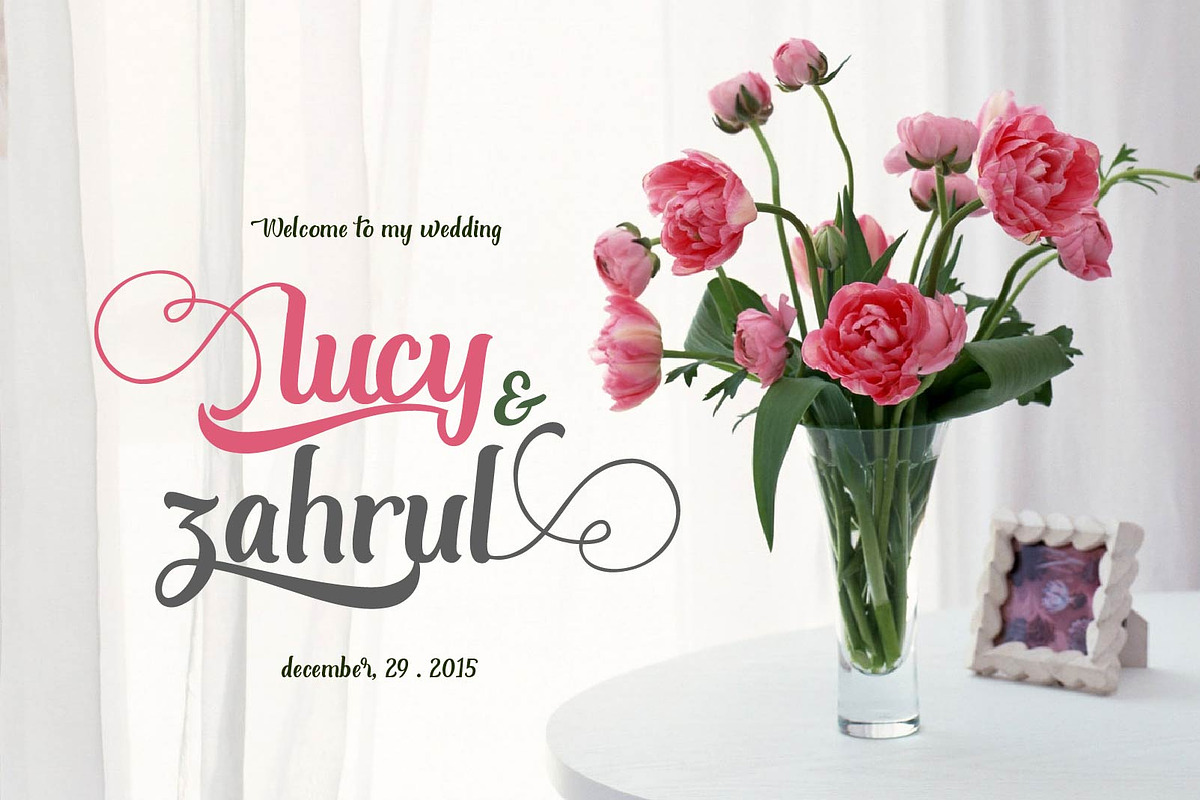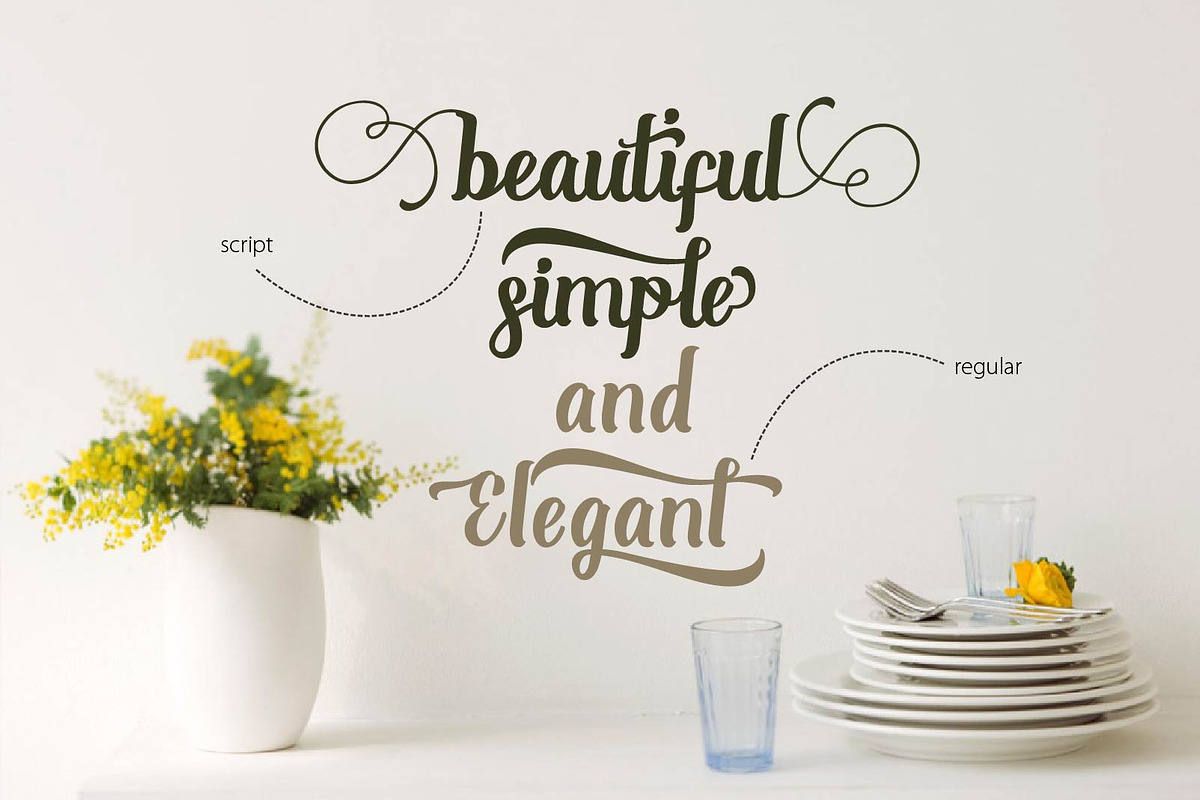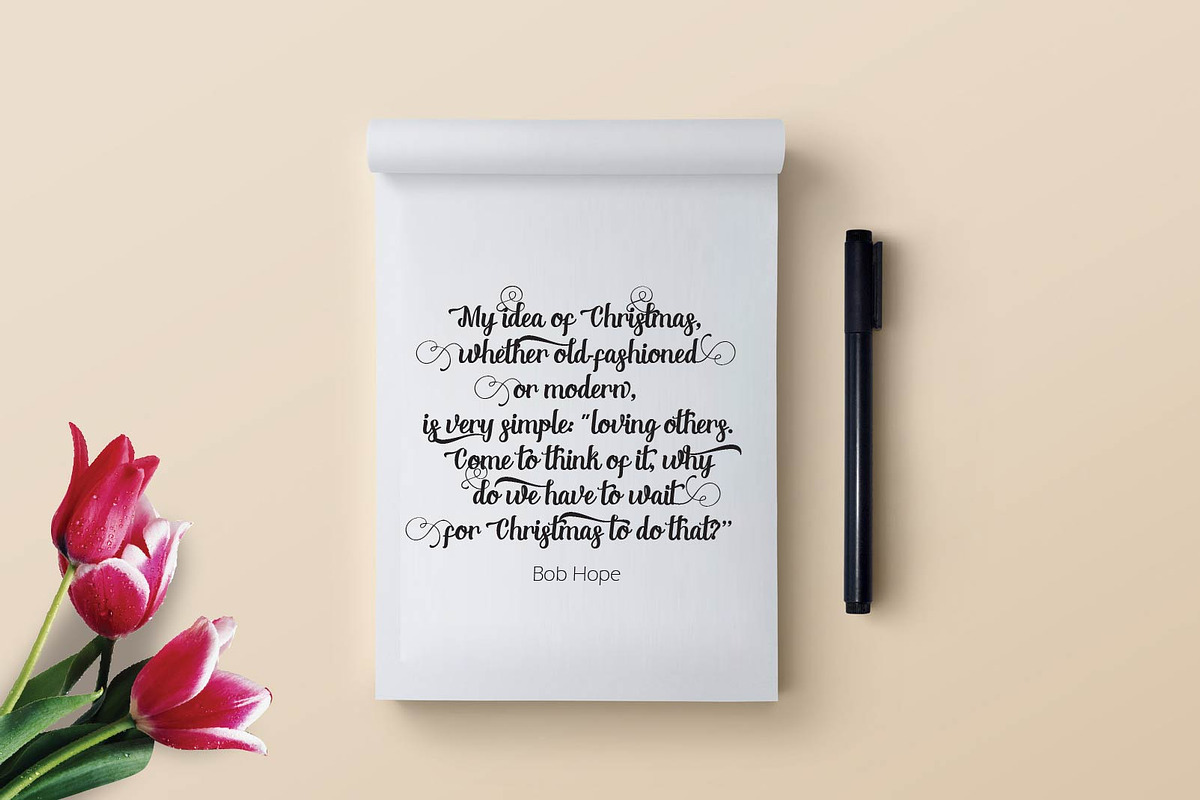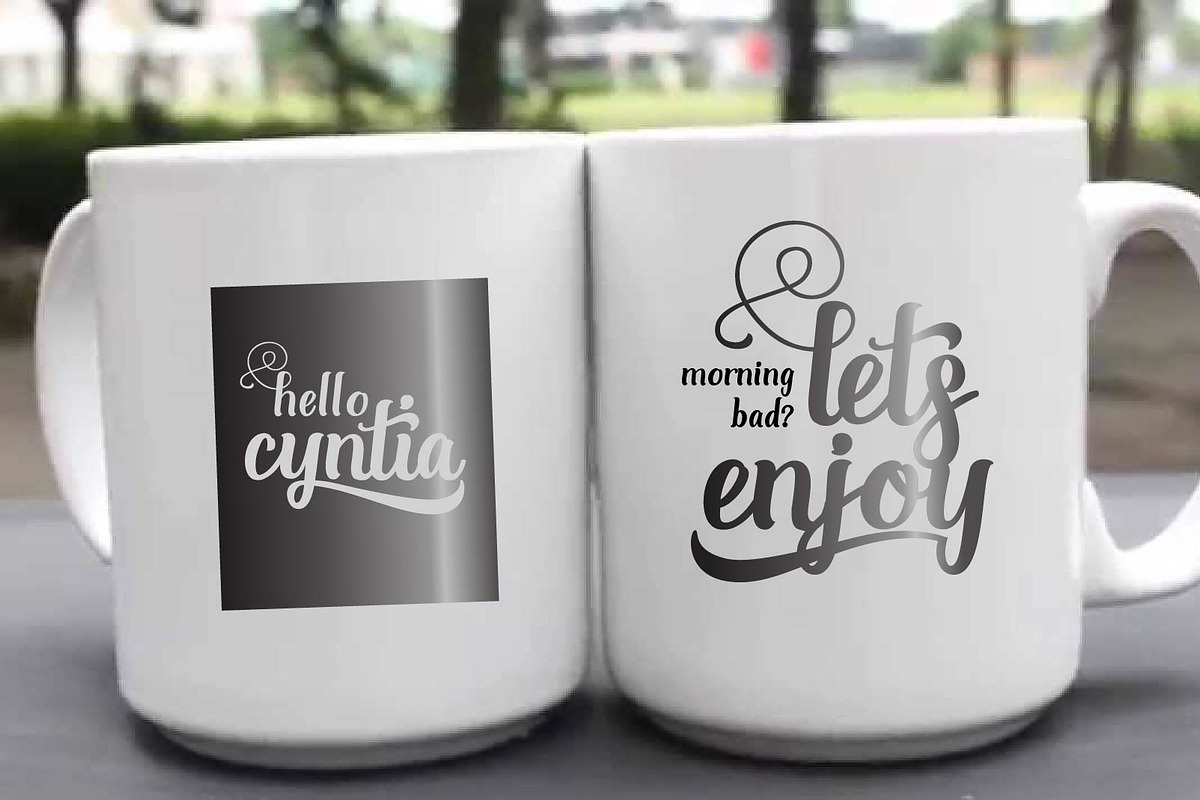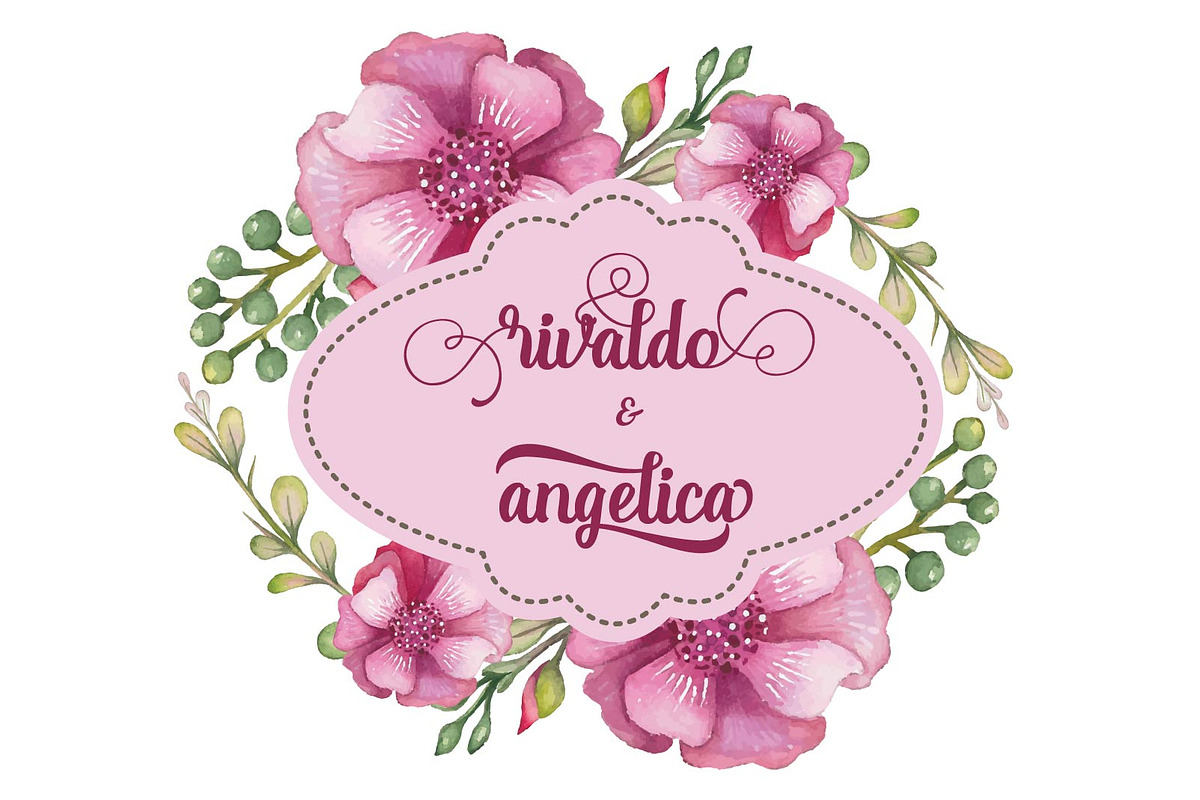
Tynabella Font Duo
Tynabella Font Duo by Olexstudio is a font selected for branding, posters, packaging, typography.
- Tynabella font comes with a complete set of standard characters, Punctuation, international glyphs, The alternative characters were divided
- Tynabella Regular
- Tynabella Script Regular
Tynabella Font Duo by Olexstudio fits naturally into Branding, posters, packaging, typography.